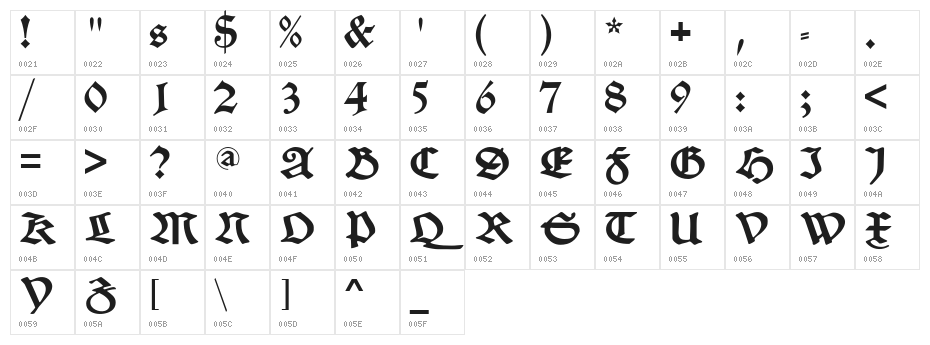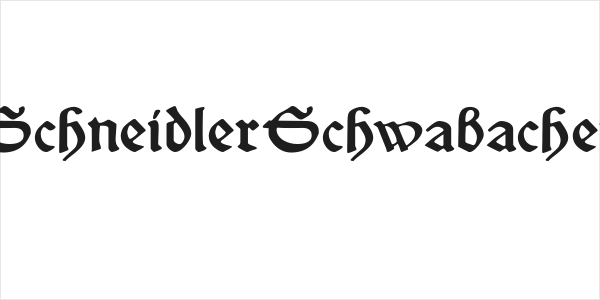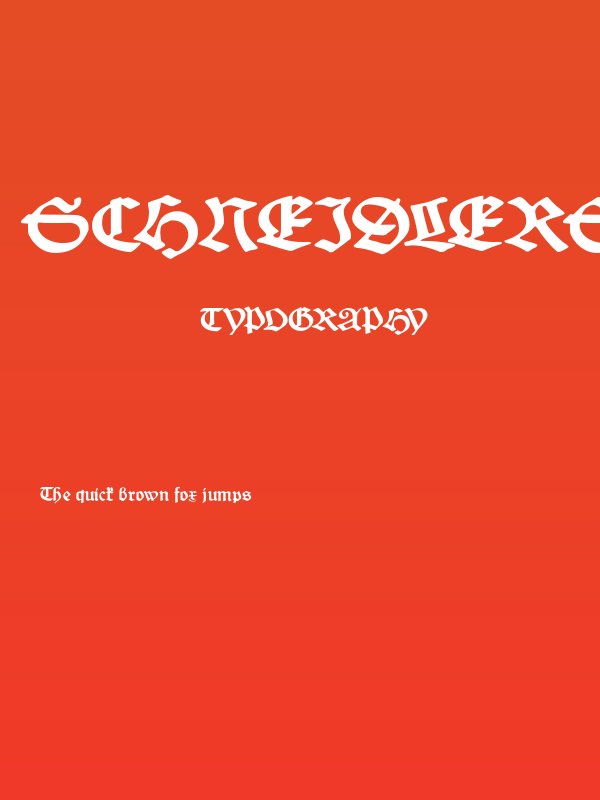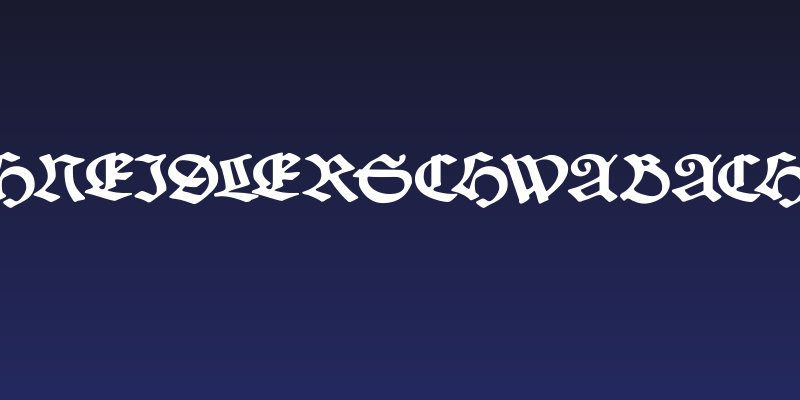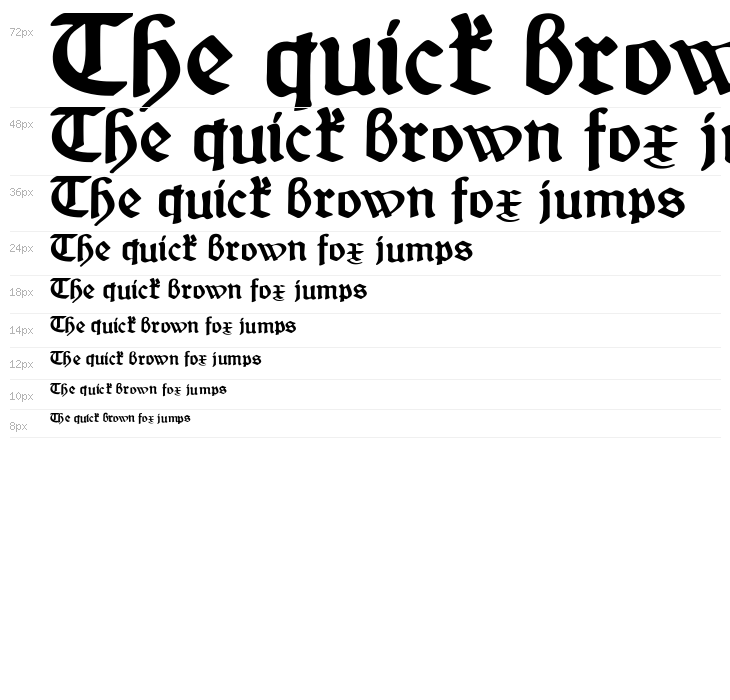
SchneidlerSchwabacher Font
SchneidlerSchwabacher Description
This font exhibits a traditional blackletter style, characterized by its intricate and ornate letterforms. The uppercase letters feature sharp, angular lines with dramatic flourishes, while the lowercase letters maintain a consistent gothic aesthetic with a slightly more rounded appearance. The numerals are bold and distinct, echoing the same gothic influence. Special characters are designed to complement the overall style, with unique and elaborate shapes. The font's historical and medieval feel makes it suitable for projects that require a touch of classic elegance and sophistication.
| Use Case | Headlines, Logos, Decorative text |
| Proposed Projects | Ideal for historical documents, certificates, book covers, and branding that requires a classic or medieval touch. |